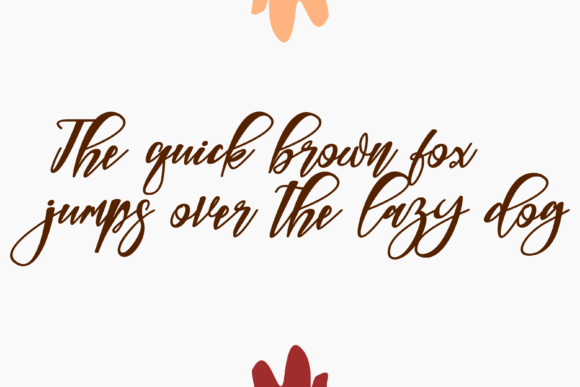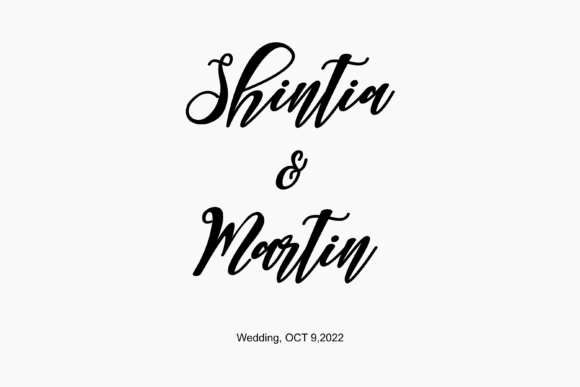
The Perfect Blend of Creativity and Elegance: Introducing Autumania Font
Have you ever been stuck in a creative rut, staring blankly at a blank page or screen, trying to come up with the perfect idea? It’s a feeling we’ve all been there at some point, but sometimes all it takes is a small spark to get those creative juices flowing. For designers, the right font can be just that spark, elevating a project from ordinary to extraordinary.
Enter Autumania Font, a casual and fresh handwritten font that’s sure to bring a touch of personality to any creation. Whether you’re working on a blog post, a social media campaign, or a marketing brochure, Autumania Font has the potential to take your design to the next level. With its versatility and unique charm, Autumania Font is a valuable addition to any designer’s library.
Autumania Font Key Features
- Unique Characteristics: Autumania Font boasts a distinctive blend of modern and traditional elements, featuring intricate details, elegant curves, and a sophisticated aesthetic that sets it apart from other fonts.
Autumania Font Review
As a designer, I was excited to dive into the Autumania Font and see what it has to offer. Here’s my honest review.
The font’s unique blend of whimsy and elegance is sure to grab attention. The Autumania font has a charming, storybook quality that makes it perfect for titles and headings.
The font’s flexibility is impressive, working well for both digital and print applications.
The font’s extensive character set includes a wide range of languages, making it a great choice for international projects.
The font’s intricacy can make it difficult to read in smaller sizes, which may limit its use for body text.
The font’s uniqueness can also be a double-edged sword, making it harder to pair with other fonts without feeling overwhelming.
The Autumania Font is a beautiful, eye-catching choice for projects that require a touch of magic. While it may not be the best choice for every project, it’s definitely worth considering for titles, headings, and other design elements that need a little extra flair.
Autumania Font: A Practical Application Guide
Tips for Getting the Most Out of Autumania Font
Use Autumania Font for formal or elegant designs, such as invitations, certificates, or business cards. Pair it with a neutral background color to emphasize the beauty of the font. Experiment with different font sizes and styles to create visual interest.
Autumania Font is suitable for formal or elegant designs, such as:
- Invitations and event cards
- Certificates and awards
- Formal documents and reports
Alternatives to Autumania Font
Comparison: While Autumania Font is more playful and whimsical, Playfair Display is more elegant and refined. Playfair Display is suitable for designs that require a touch of sophistication and luxury, whereas Autumania Font is better suited for designs that need a more playful and creative vibe.